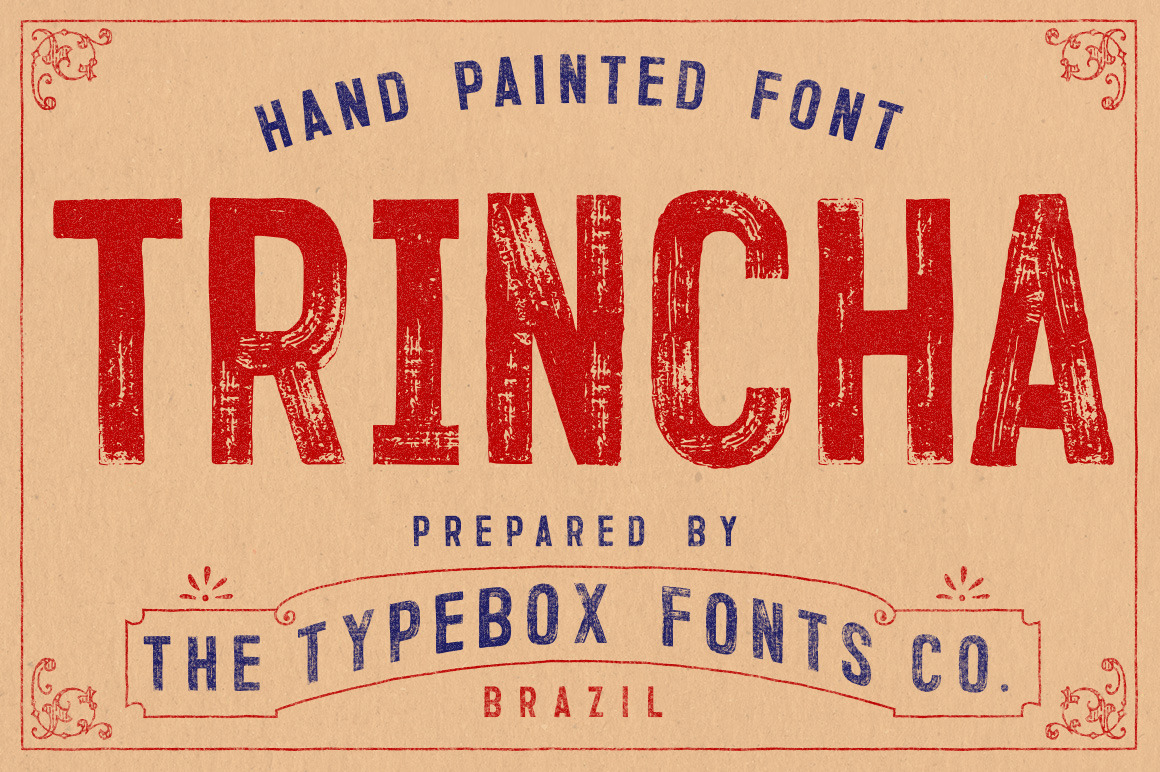
Trincha Typeface
TypeBox presents:
Trincha Typeface
A sans-serif, vernacular, open type typography with 145 glyphs based on the hand painted letters seen on the walls of Sao Paulo country towns.
TRINCHA is the portuguese name of a broad brush, the kind of brush used on signs and wall letterings.